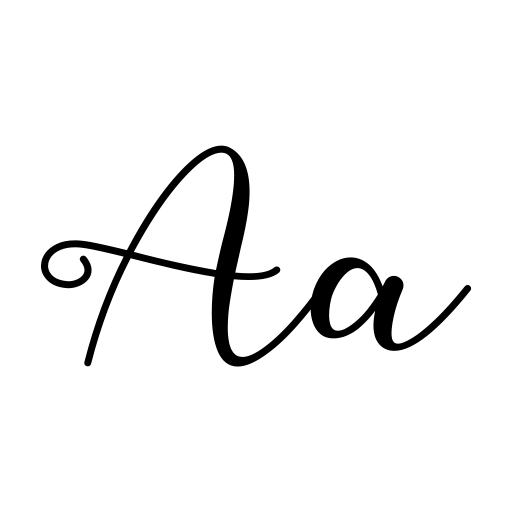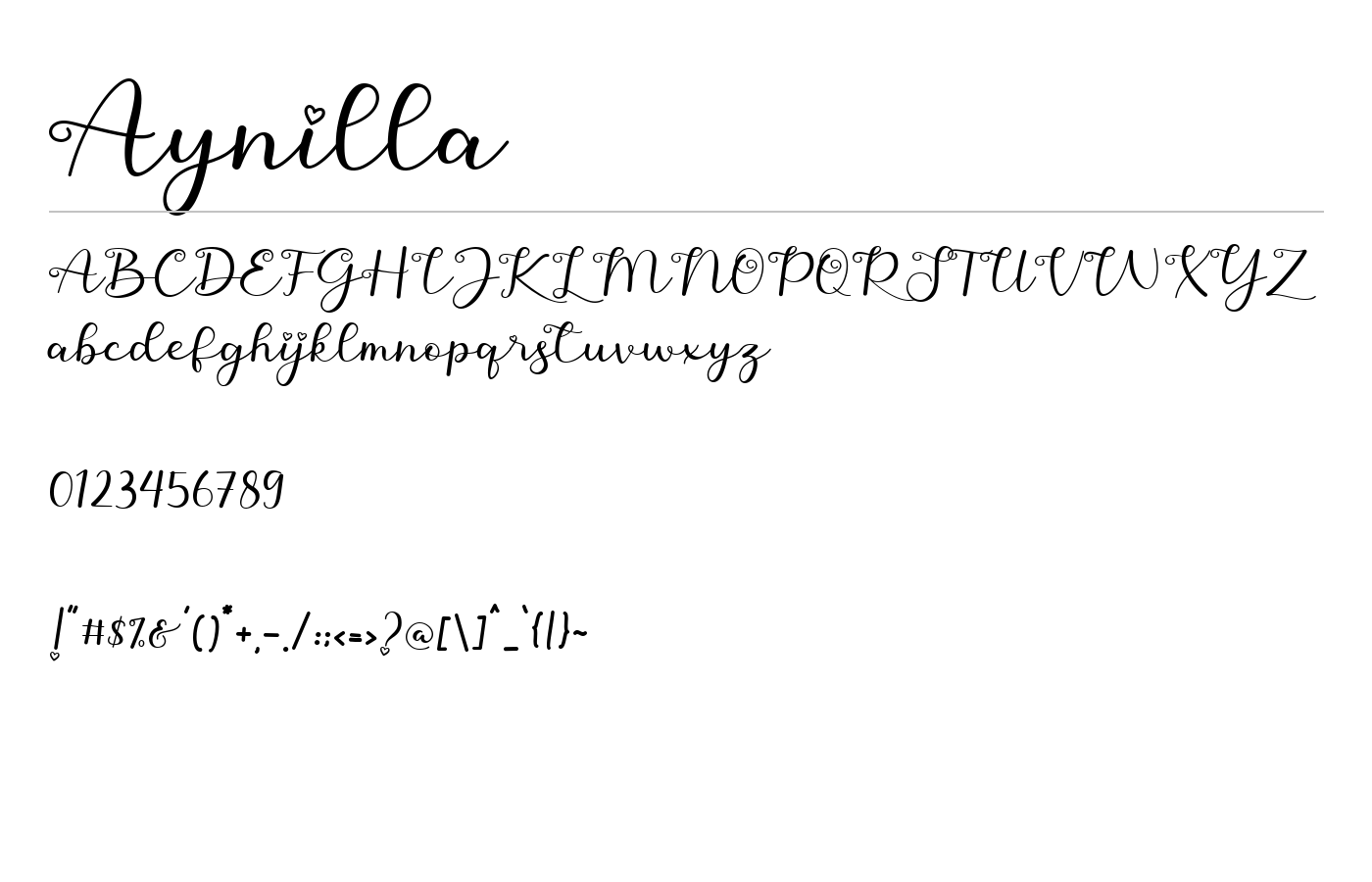
Aynilla is a delicate, handwritten script font with elegant, flowing strokes and playful heart-shaped accents that add a charming, whimsical touch. Its light weight and graceful curves make it perfect for romantic, feminine branding, wedding invitations, and stylish packaging where a personal, warm feel is desired. This font works beautifully for creative headlines and decorative text that needs a touch of elegance and friendliness.
Aynilla Font
About Aynilla Font